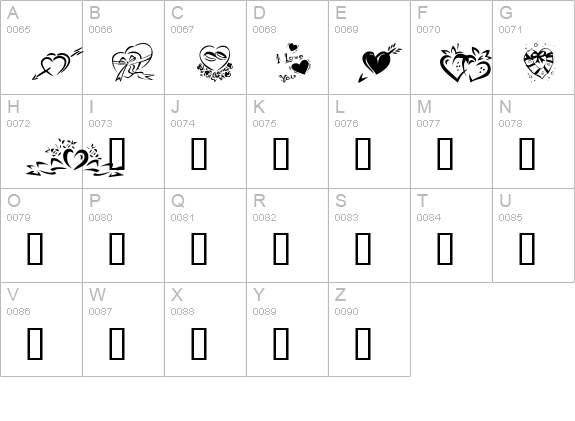
KR Valentines 2006 Four Font Details
KR Valentines 2006 Four font is a whimsical and charming typeface perfect for adding a touch of romance to your designs. With its playful curls and swashes, this font exudes love and warmth, making it ideal for Valentine's Day projects, wedding invitations, or any other design that needs a romantic flair. What makes KR Valentines 2006 Four font even more appealing is that it is available for free download at FontsMarket.com. This means you can easily access this lovely font and use it in your projects without any cost. So go ahead and add a dash of romance to your designs with KR Valentines 2006 Four font - available for free at FontsMarket.com.